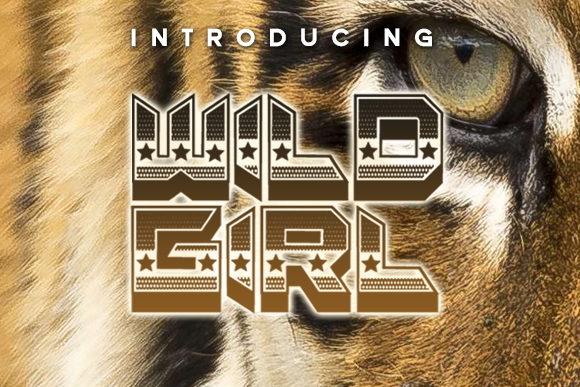
Prepare yourself for the bold and untamed allure of Wild Girl – a decorative font that defies the ordinary! This exquisite creation from the mind of master designer vladimirnikolic is your gateway to gripping visual artistry.
Unleash the captivating magnetism of this 3D masterpiece, designed to leave an enduring imprint on your designs. Whether you're crafting captivating posters, eye-catching flyers, or unforgettable prints, Wild Girl empowers you to express your vision with unparalleled boldness.
Step into a world where creativity knows no bounds. Wild Girl's unique character dances between untamed energy and modern refinement, evoking a sense of both raw power and sophisticated allure. It's a font that speaks volumes without uttering a single word, commanding attention and igniting imaginations.
With Wild Girl at your fingertips, you unlock a world of possibilities. Transform your designs into captivating works of art that leap off the page and into the hearts of your audience. Its versatility knows no limits, adapting effortlessly to any project that demands a touch of the extraordinary.
Embrace the untamed spirit of Wild Girl and witness your designs soar to new heights of visual brilliance. Dare to be bold, dare to be different, and let the power of this magnificent font guide you on an unforgettable creative journey.